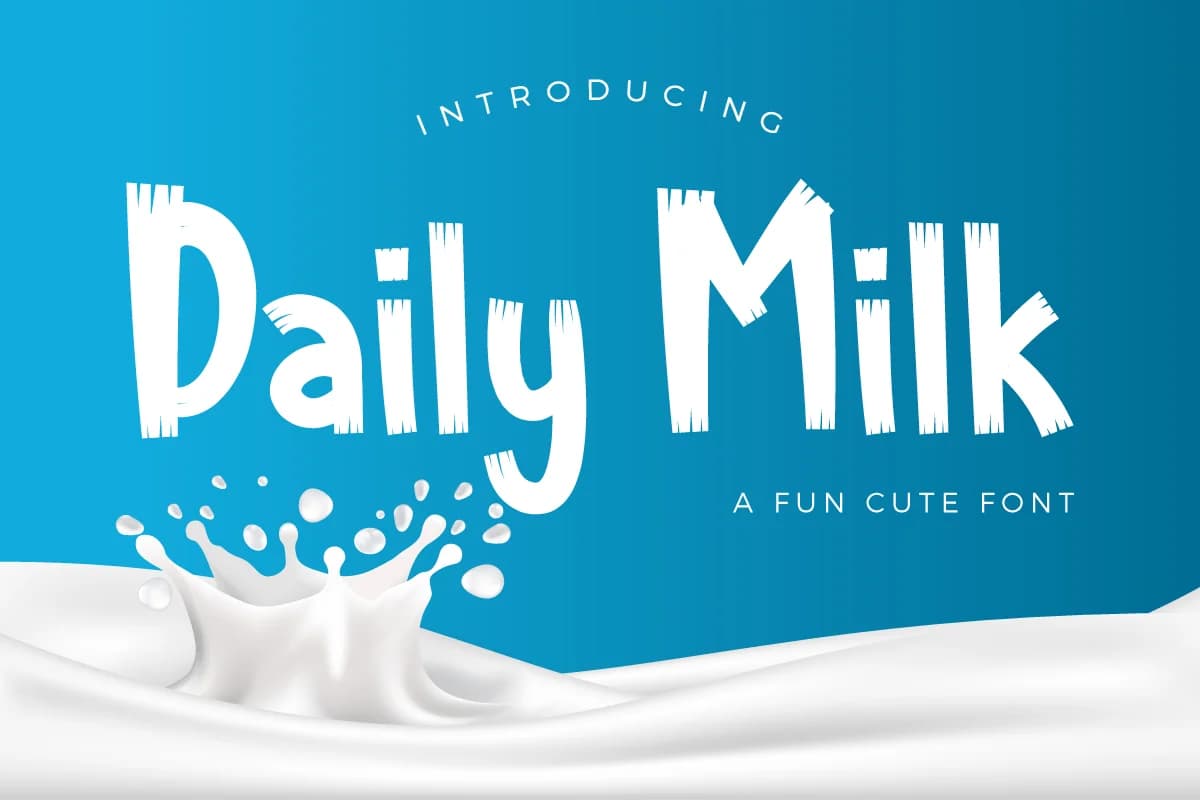
1 / 6About Daily Milk Font
Daily Milk by Kang1993 is a contemporary brush script that captures the organic warmth of hand-lettering while maintaining clean, controlled letterforms throughout each character. The font's balanced stroke weights create a refined feel suited for both digital and print applications, offering designers a versatile tool for projects requiring personality without sacrificing legibility or professional presentation. This typeface excels across diverse creative applications and design contexts. Wedding invitation suites benefit from its sophisticated brush character and refined aesthetic that conveys elegance. Food and beverage packaging, from artisan coffee labels to specialty bakery products and gourmet chocolate, gains an approachable, handcrafted quality that resonates with consumers. Greeting card designs showcase warmth and character, while social media graphics and Instagram stories display its energetic letterforms with visual impact. The consistent brush texture works equally well for cosmetics and wellness product labels seeking authentic, contemporary branding that stands out. Daily Milk's controlled proportions and balanced character weight ensure readability across various sizes, making it effective for both intimate stationery and larger display work. Whether you're designing cohesive brand identities, packaging systems, or creative one-off projects, this brush script delivers visual consistency and memorable impact. Discover Daily Milk on Creative Fabrica and add this refined brush script to your design collection.
Daily Milk Font is a script font that shines as a display or heading face. Pair it with a clean sans-serif or serif font for body text β the contrast creates a clear hierarchy while the two styles stay balanced and easy to read.
Daily Milk Font
by Kang1993